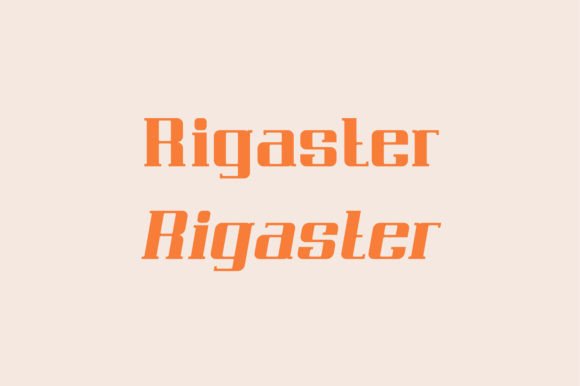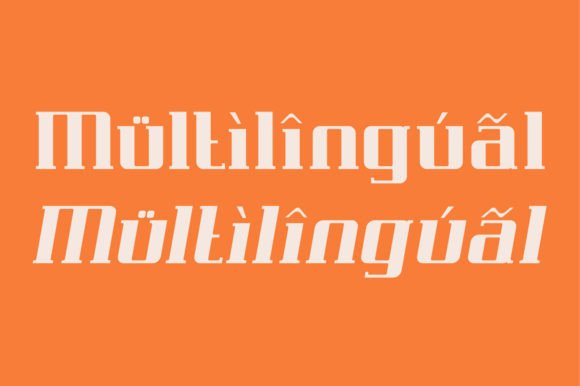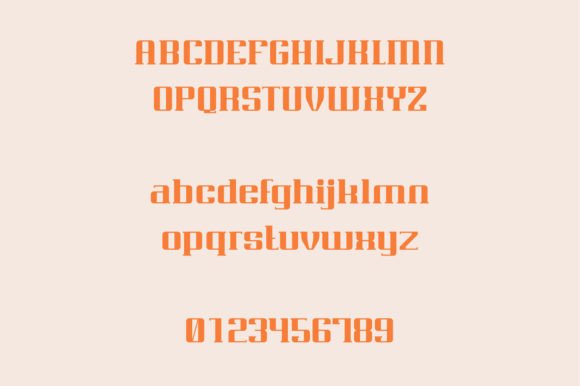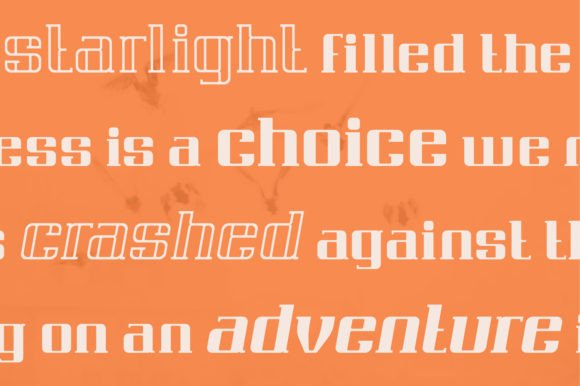
Introduction to Rigaster Font Font
Fonts play a crucial role in design, and the Rigaster Font font is a typeface that brings both character and versatility to any project. Whether you’re working on a branding project, a website, or a print design, the Rigaster Font font offers a unique style that can elevate your work.
Rigaster is a font that encompasses four distinct styles, skillfully blending elements from classic serif fonts with those from modern typography.
This fusion results in dynamic characteristics that lend themselves perfectly to contemporary designs as well as those with a retro aesthetic .
Key Features of Rigaster Font Font
Why Choose Rigaster Font Font?
The Rigaster Font font is more than just a typeface – it’s a design tool that helps you communicate your message with style and clarity. Its unique character set and versatile design make it suitable for a wide range of applications, from elegant invitations to bold headlines.
With its carefully crafted letterforms and balanced proportions, the Rigaster Font font ensures readability and visual appeal across all mediums.
What makes Rigaster Font font special?
The Rigaster Font font stands out with its unique design, exceptional readability, and versatility across various design applications.